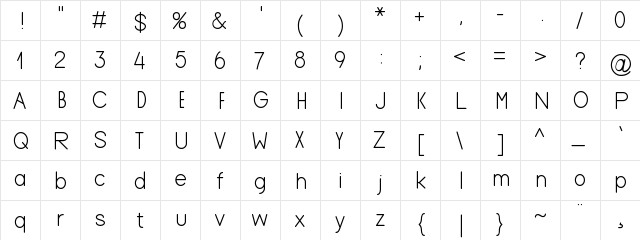
Keqima normal
Design Context for Keqima Typeface
Keqima takes a measured approach to typography — its balanced proportions and neutral character make it a reliable workhorse for both digital and print work.